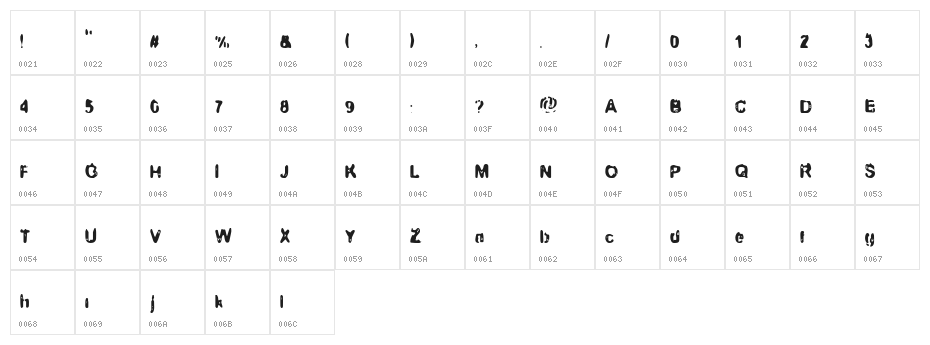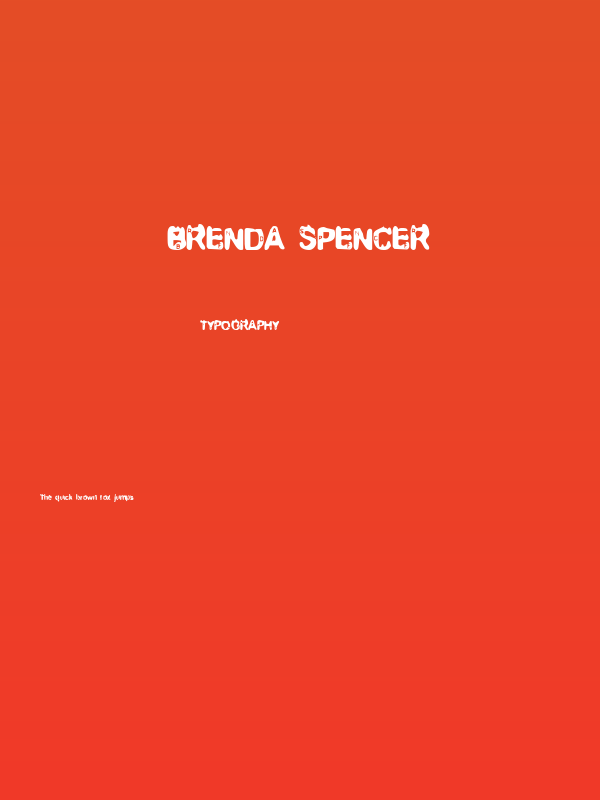
Brenda Spencer Font
Brenda Spencer Description
This font exhibits a bold and playful style with a unique, irregular texture that gives it a hand-painted appearance. The characters are thick and rounded, with a slightly distressed look that adds to its charm. The uppercase and lowercase letters maintain a consistent weight, while the numbers and special characters follow the same design ethos. The font's whimsical and artistic nature makes it stand out, perfect for creative projects that require a touch of personality and flair.
| Proposed Projects | Ideal for posters, album covers, children's book titles, and creative branding projects. |